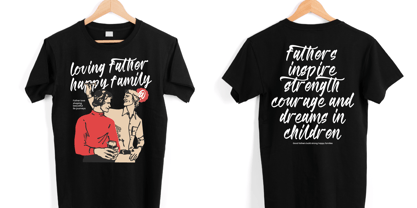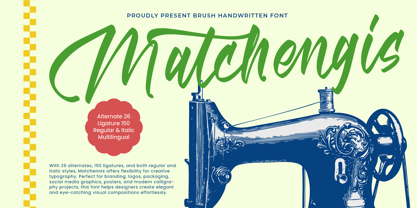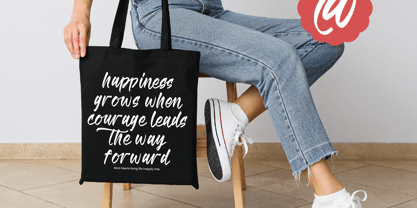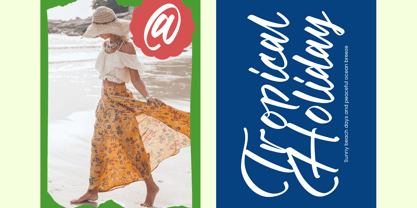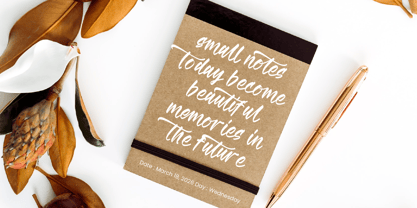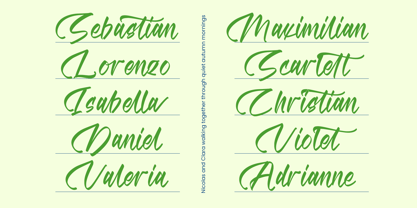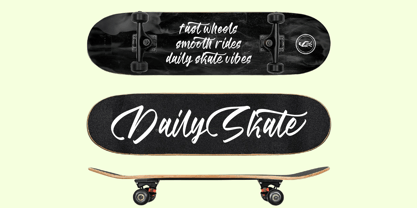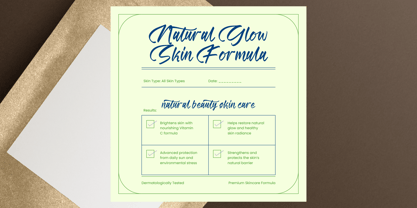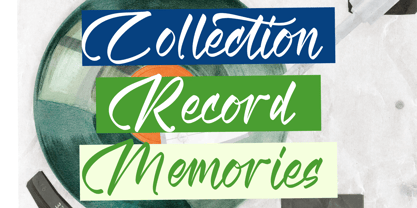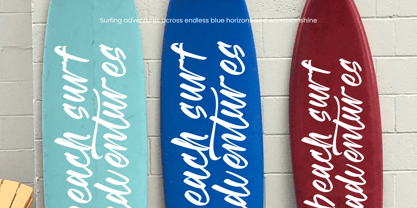
Matchengis
Matchengis – Brush Handwritten Script Font Matchengis is a bold brush handwritten script font designed with dynamic strokes and expressive lettering style. Inspired by natural brush movement and modern calligraphy, this font delivers an energetic and authentic handwritten look for contemporary design projects. The letterforms feature strong brush textures and fluid stroke transitions, creating a natural and lively rhythm. Its bold appearance makes it perfect for designs that need impact, personality, and creative expression. Matchengis includes a wide range of alternates and ligatures that allow designers to build unique and visually engaging typography compositions. With both regular and italic styles, it offers flexibility for layered text, branding, and expressive headline design. This font is ideal for projects that require a bold handwritten feel with a modern brush aesthetic.